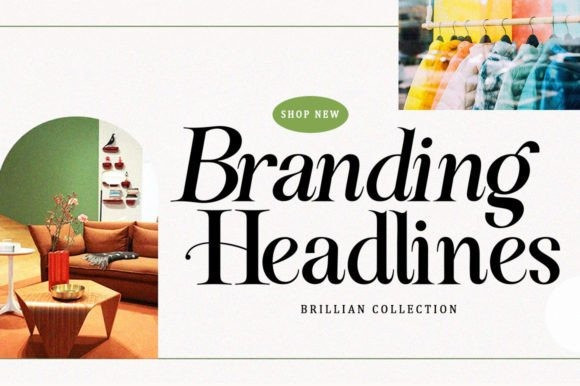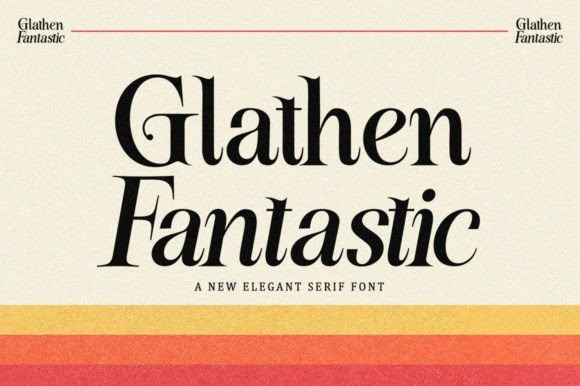
Glathen Fantastic Font
Glathen Fantastic Font is my new elegant serif font that will give your projects a touch of luxury and style. It’s perfect for logotypes, branding, monograms and wedding invitations, blog headlines, and more. Browse through all the previews and get as inspired as I was when creating this font.